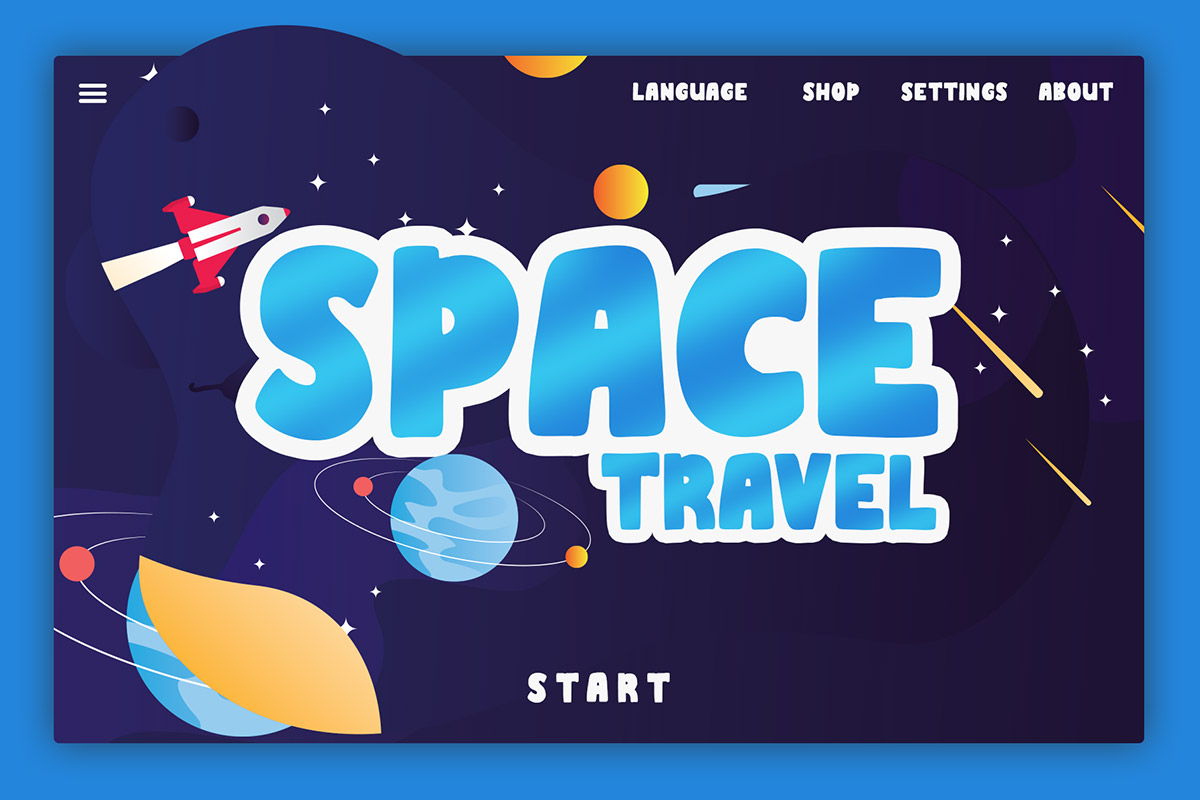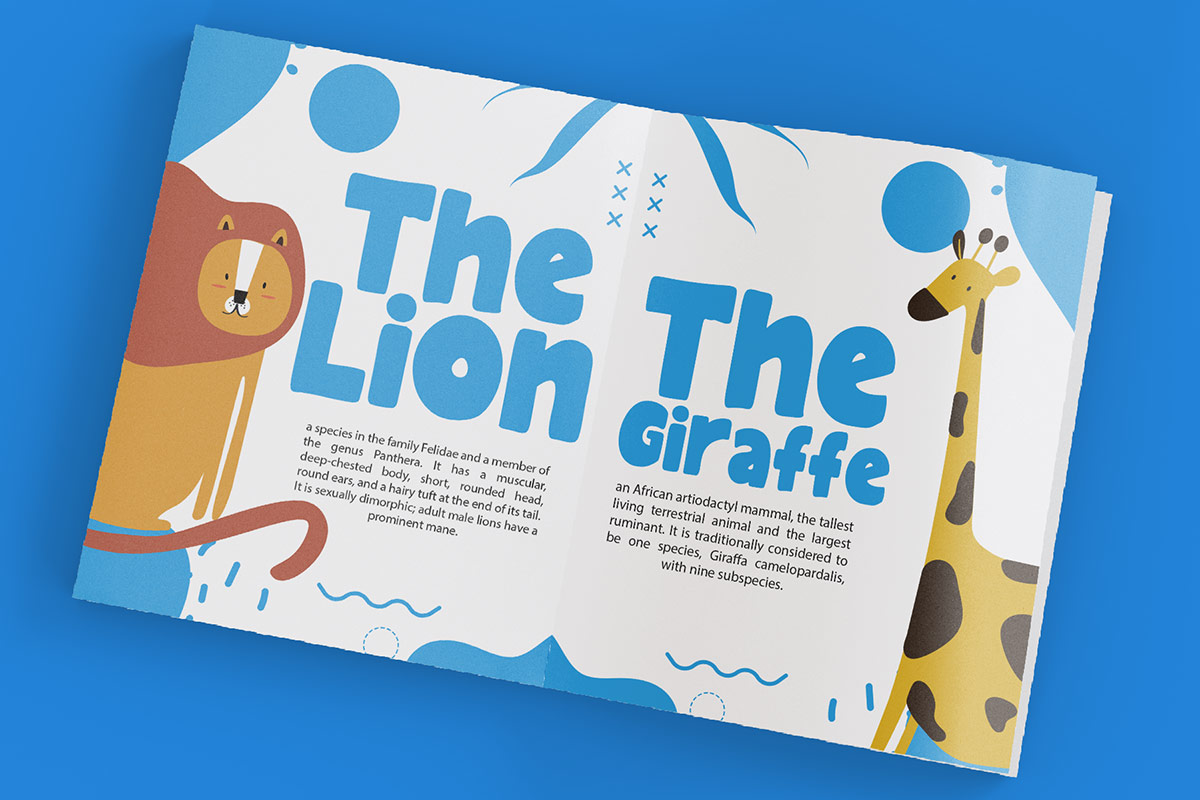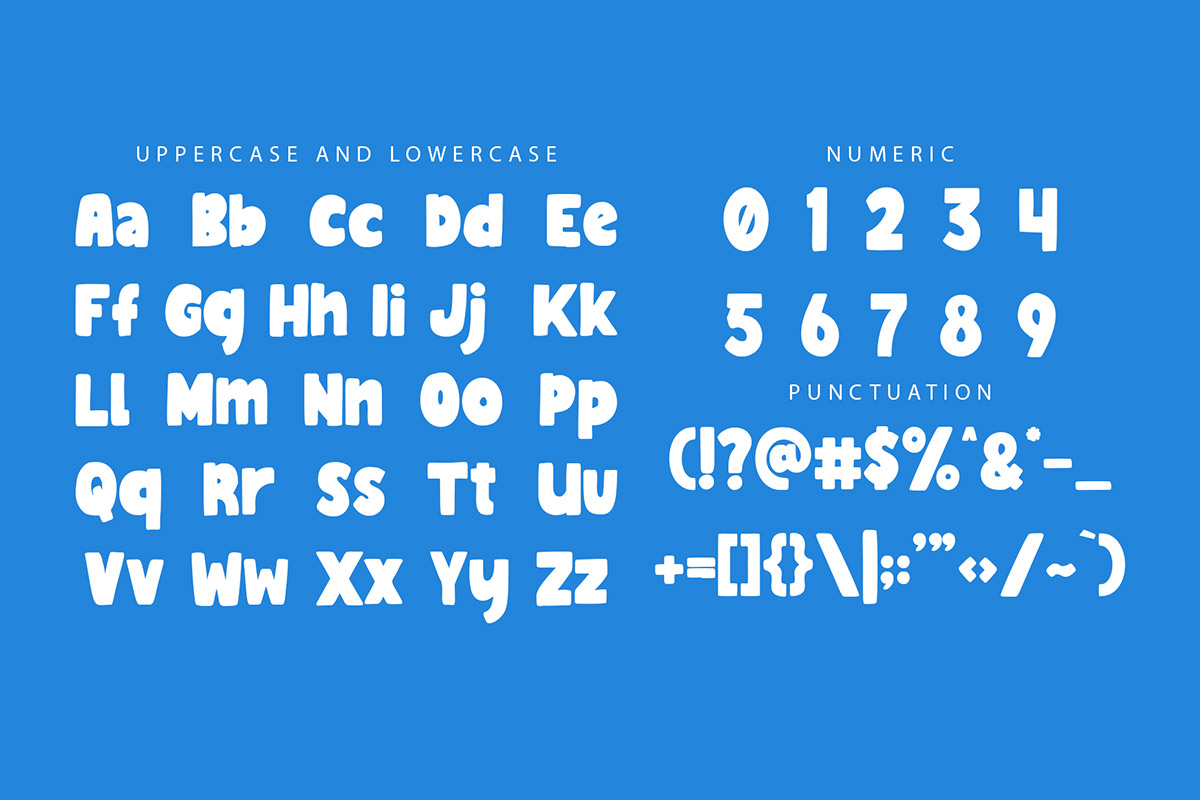
Minnio Font Minnio Modern Kids Font is one of our modern kid's fonts. This font is unique and inspired by all kinds of children's activities. The cute impression of this particular typeface will leave a memorable impression on the children's minds. You can use this Minnio Modern Kids Font for all kinds of printing purposes, such as on school supplies, bags, pencil cases, story books, study books, and decorations on school walls. If placed on various items, the fun and eye-catching design of this typeface will attract the attention of the children almost instantly. Therefore, it is best to use this typeface on any children's products. Minnio Modern Kids Font can also be used effectively in the digital world. This font is also suitable for individuals and companies who want to make games for children or to produce a film or video streaming service for young audiences. Our display fonts collection is compatible to use as Figma fonts, Canva fonts, Freepik Fonts, and Adobe Fonts. They also work as Windows Fonts and Apple Fonts. For your social media needs, you can use and install fonts in our collection of display and decorative typefaces to use as Instagram Fonts, Facebook Fonts, and Twitter Fonts.